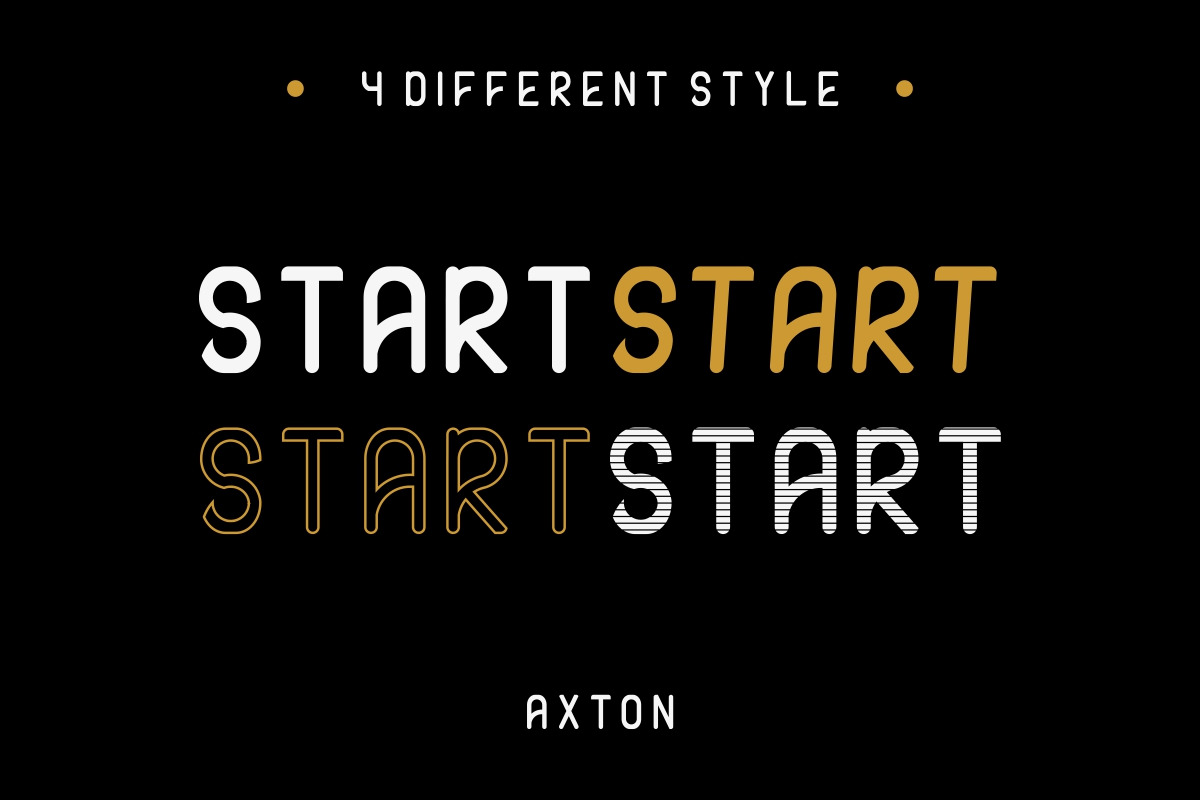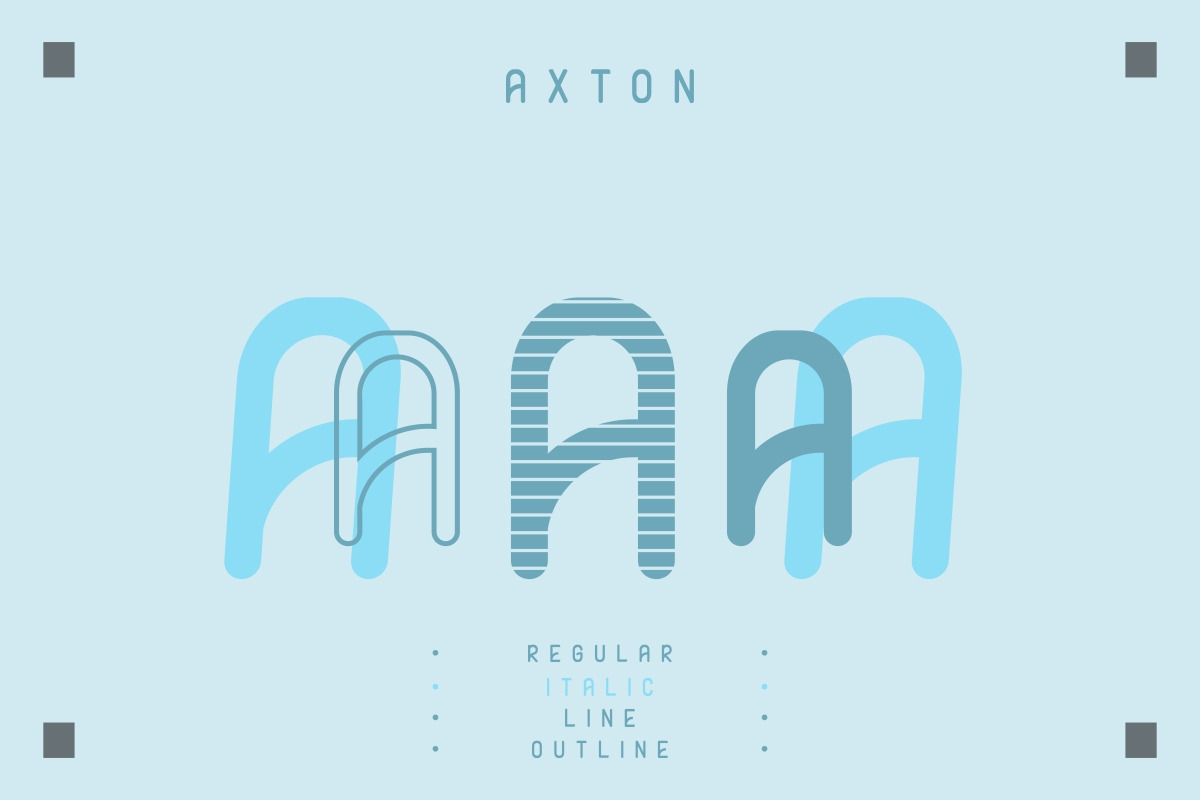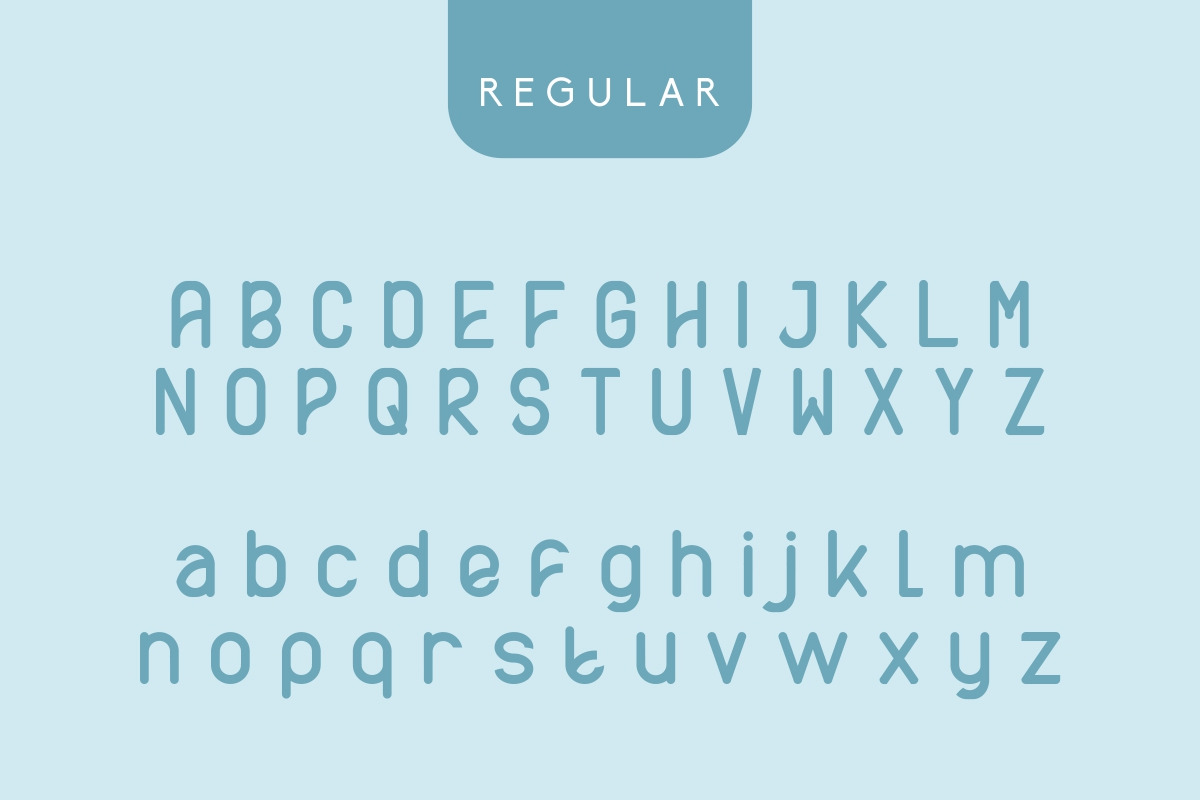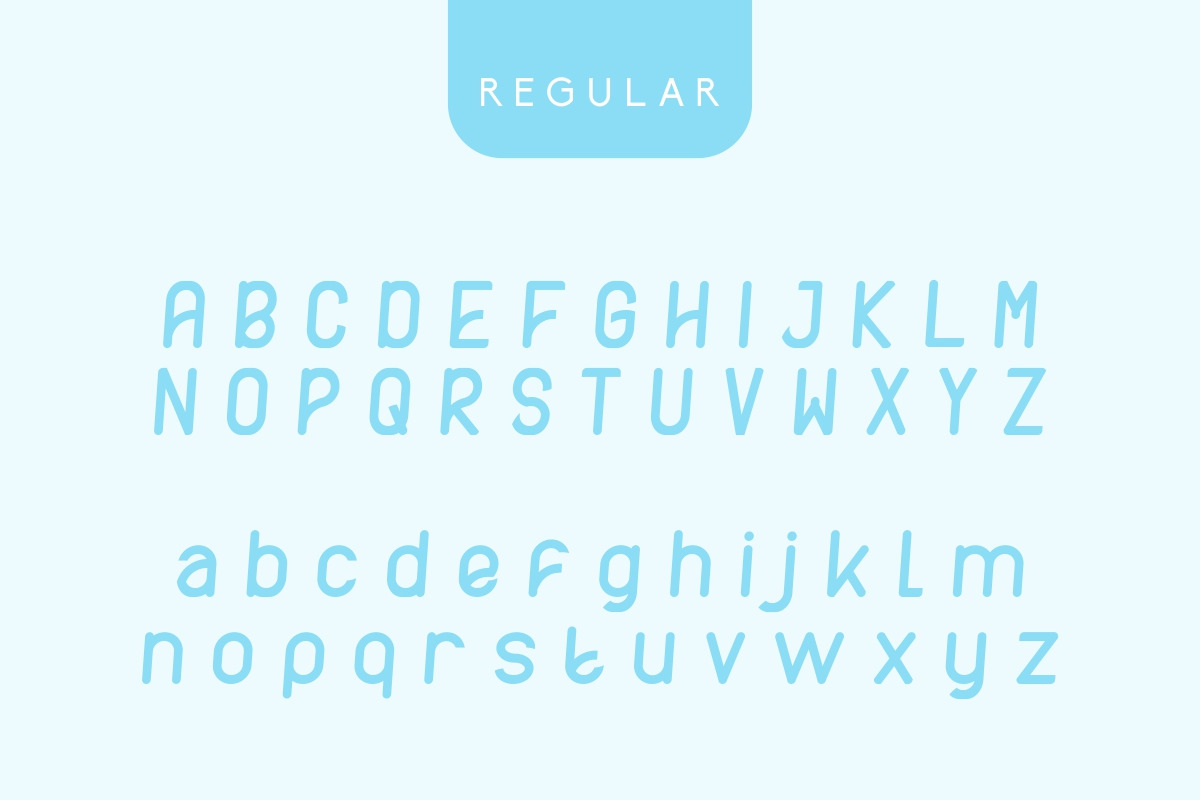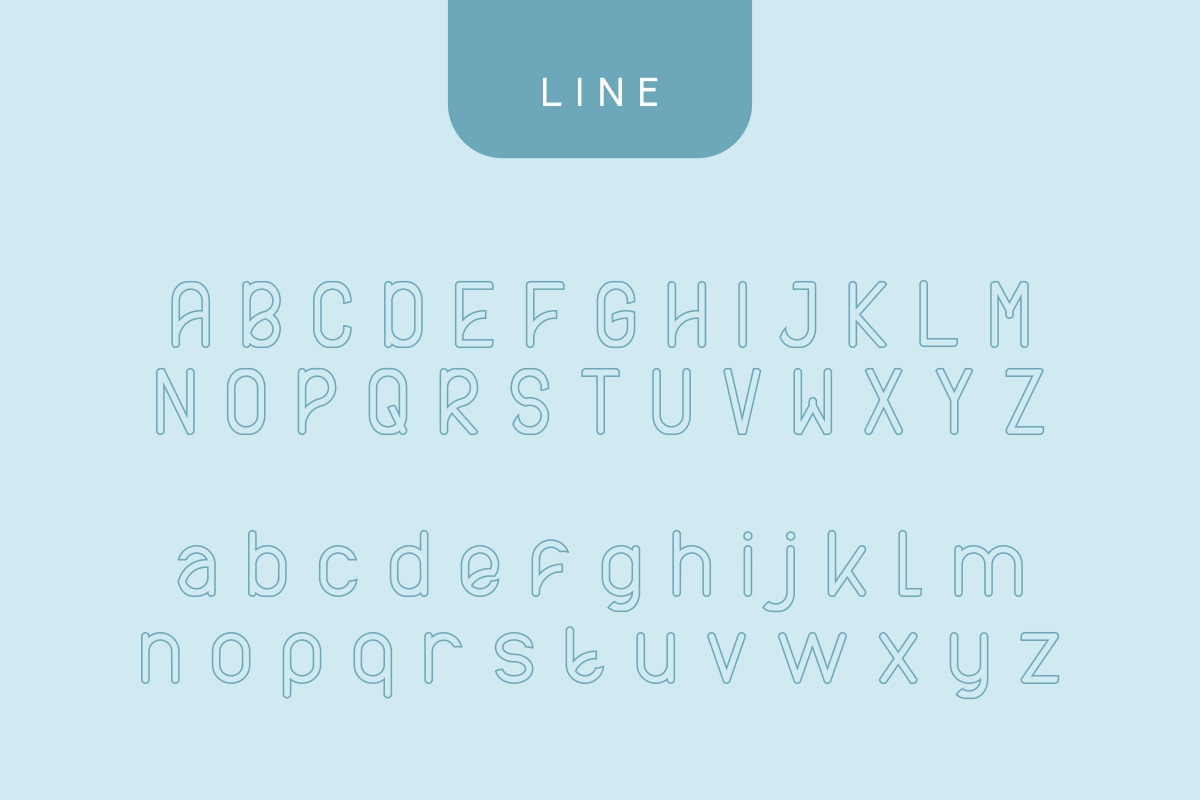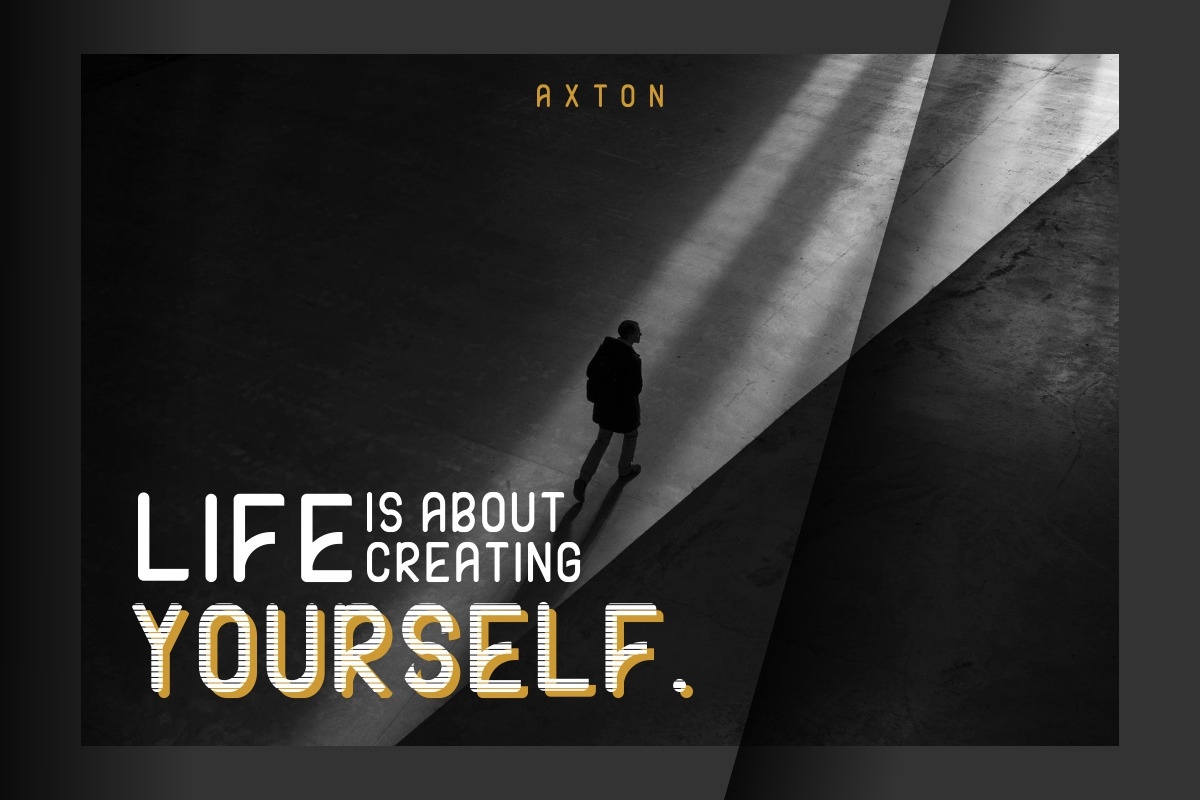
AXTON Sans Serif Font
AXTON : Rounded Condensed Sans Serif
AXTON Font will be great for any projects (with exntended license) including : branding, logo, stationery, business card, signage, flyer, brochure etc. Almost all industries will be match for this typeface: wedding, events, real estate, architect, law firm, florist, gardening, makeup artist, travel, hotel, musician etc